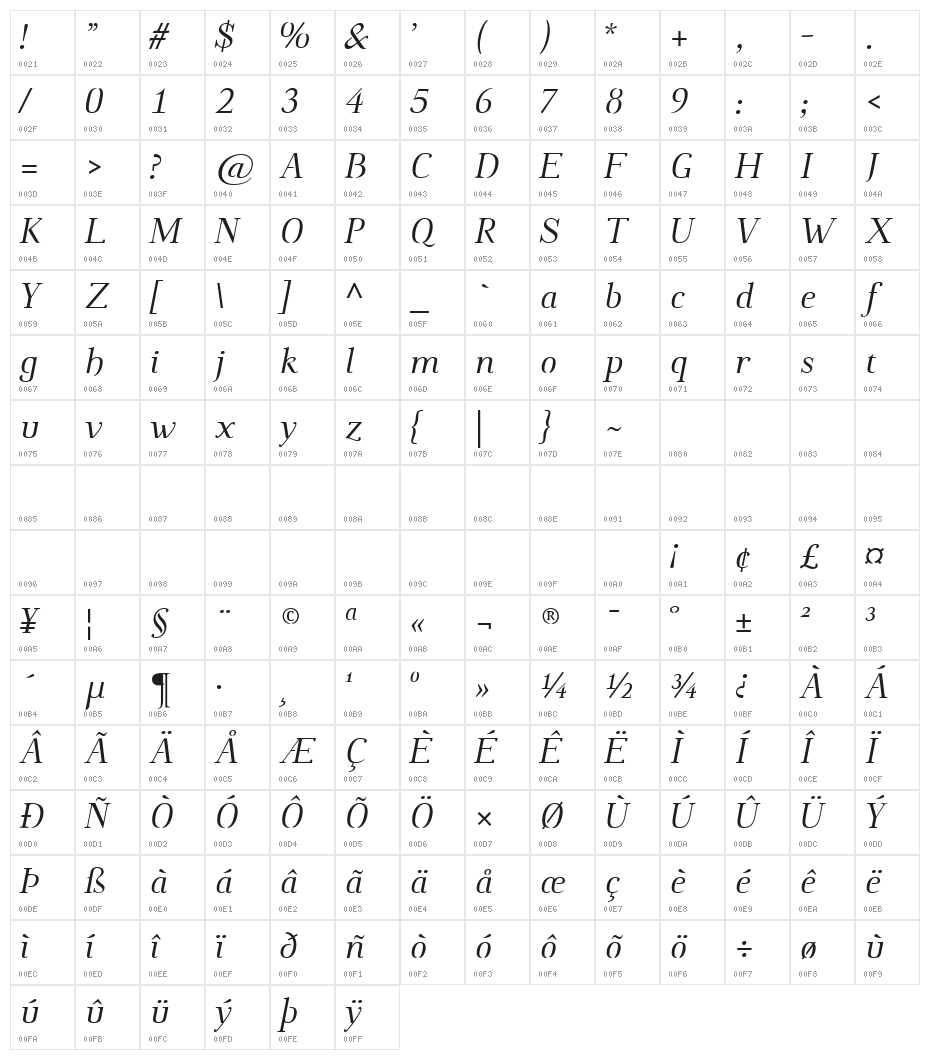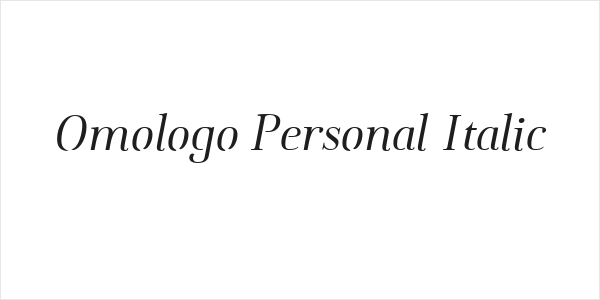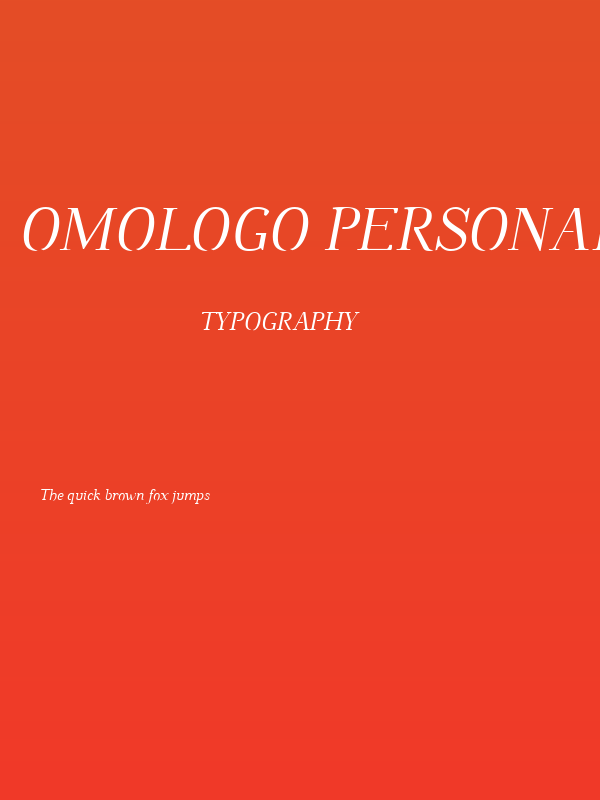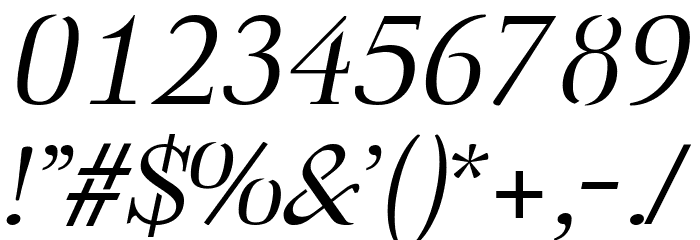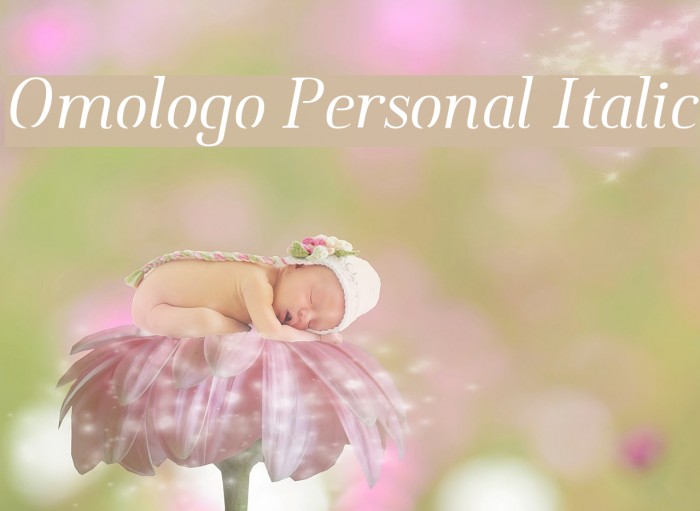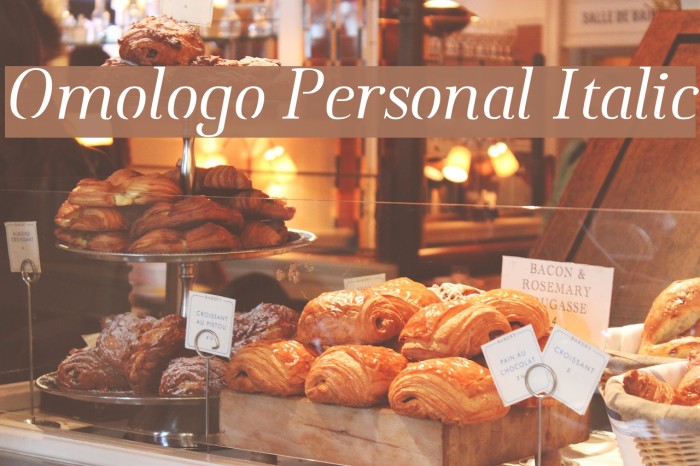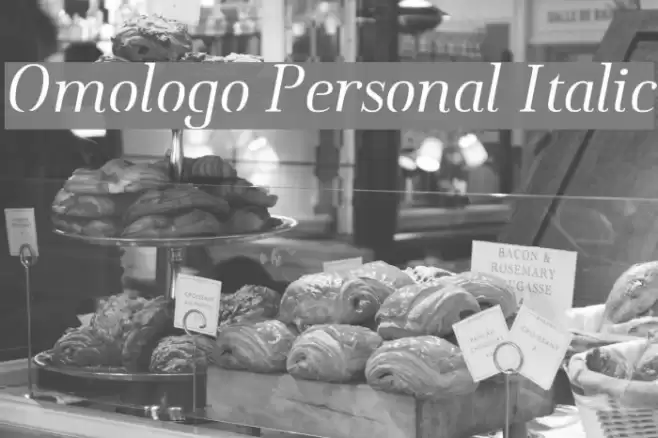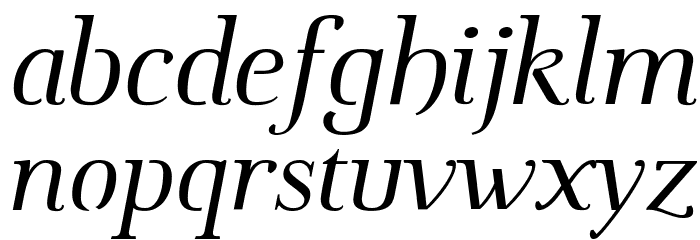
Omologo Personal Italic Font
Omologo Personal Italic Description
This font exhibits a classic and elegant style with a refined italic slant, giving it a sophisticated and dynamic appearance. The characters are well-proportioned, featuring smooth curves and sharp serifs that enhance readability while maintaining a stylish flair. The uppercase letters are tall and commanding, while the lowercase letters are more delicate, providing a nice contrast. Numerals are clear and distinct, making them suitable for various applications. The special characters are thoughtfully designed, maintaining the overall aesthetic of the font.
| Overall Style | Classic |
| Use Case | Headlines, Body text, Logos |
| Proposed Projects | Ideal for use in formal invitations, editorial design, branding projects, and elegant packaging. |